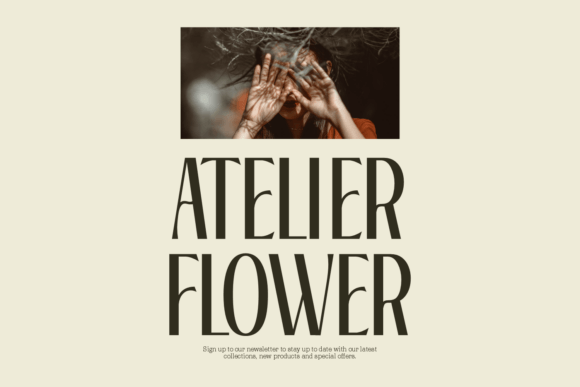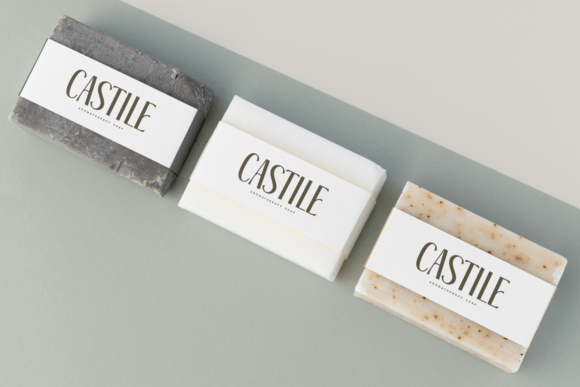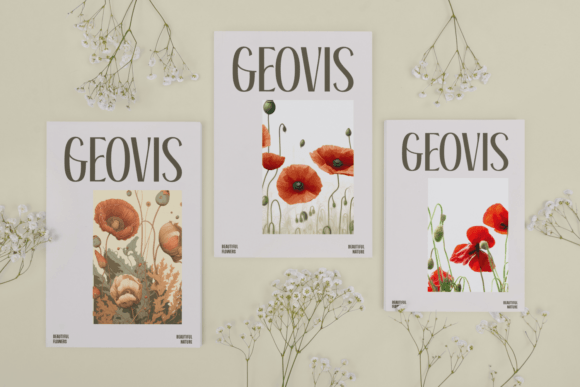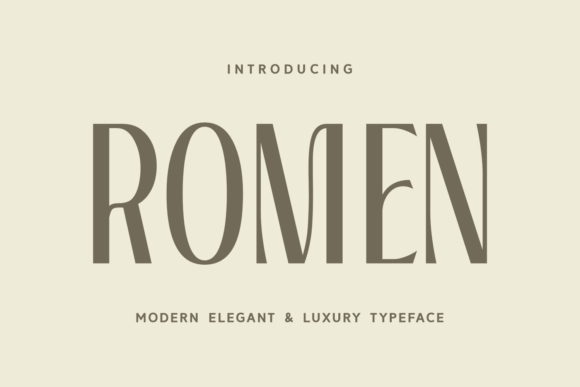
Introduction to Romen Font
Romen is a sleek, modern sans-serif font that blends elegance with simplicity.
Its clean lines and balanced proportions make it versatile for both print and digital design Perfect for branding, editorial layouts, and web design, Romen delivers a contemporary, professional aesthetic.
Key Features of Romen Font
Why Choose Romen Font?